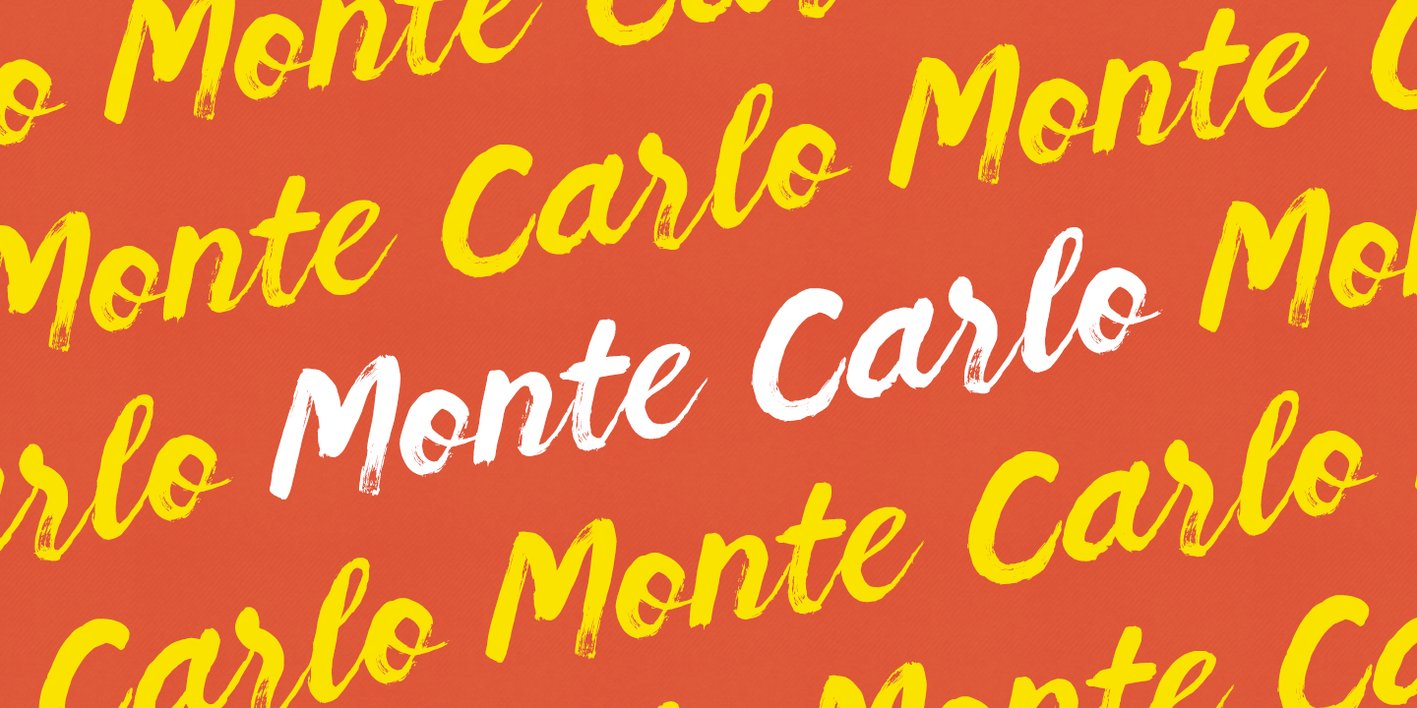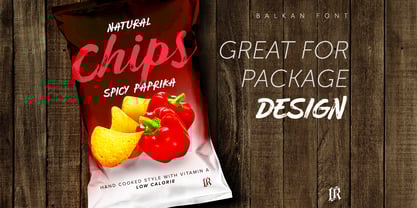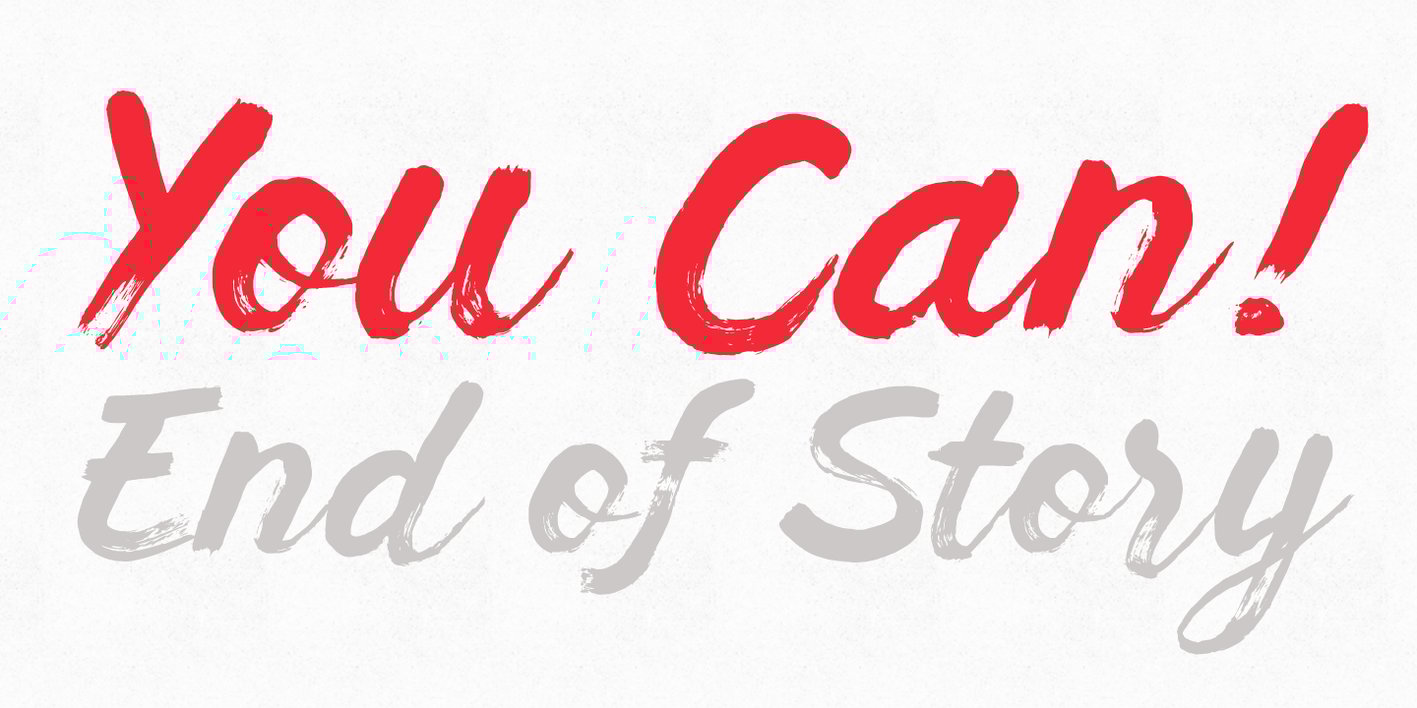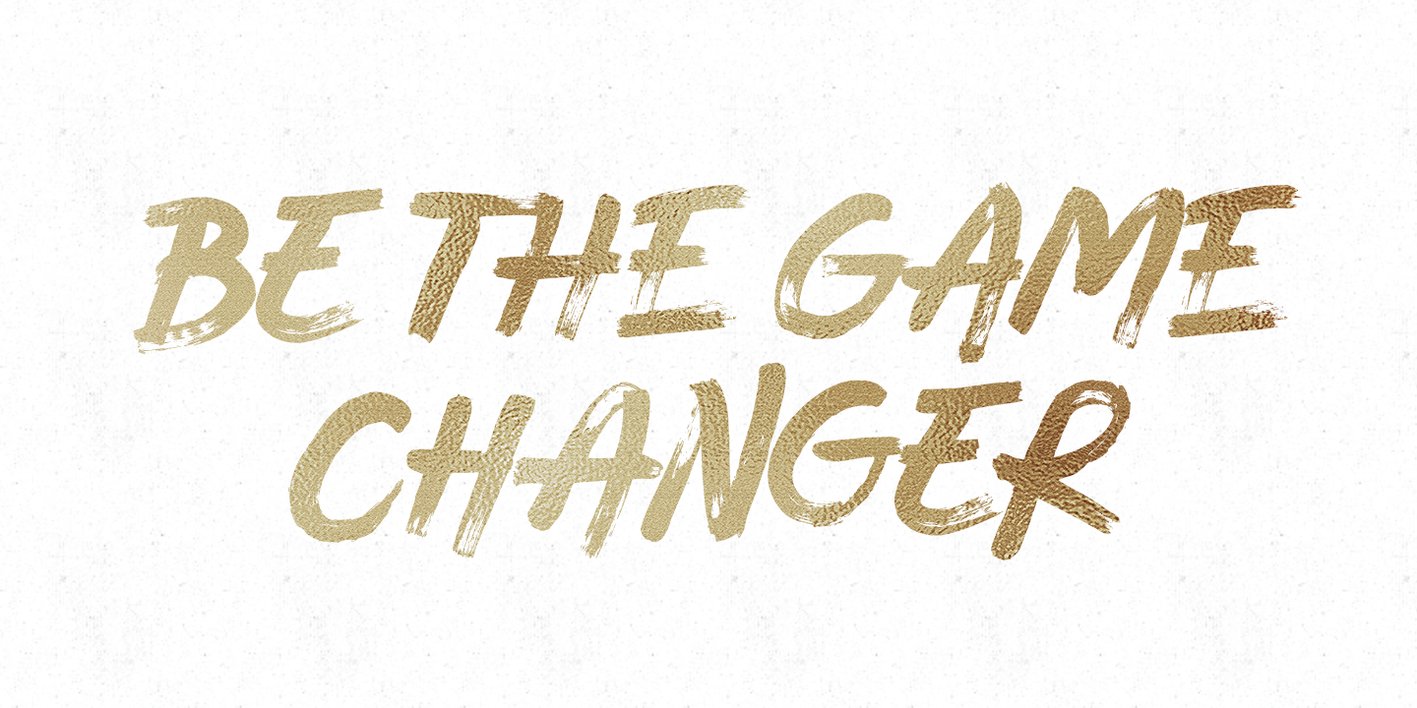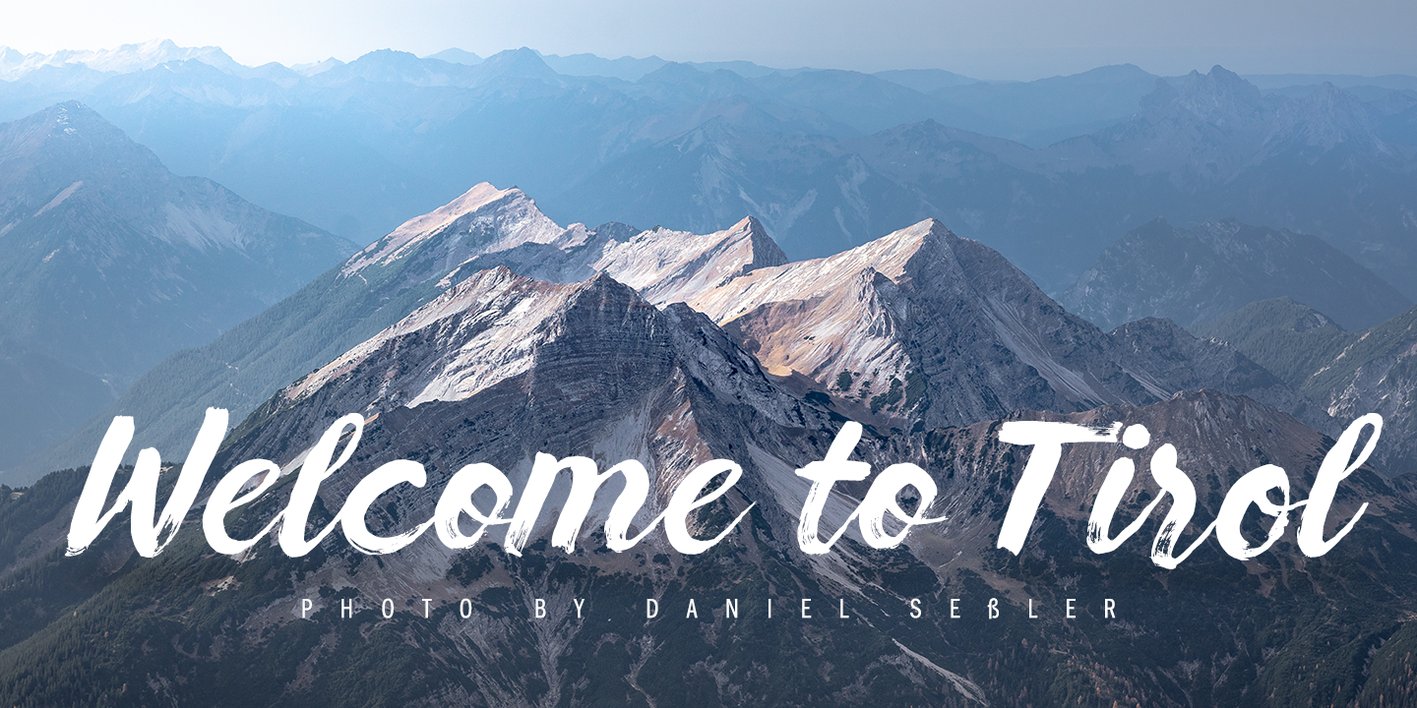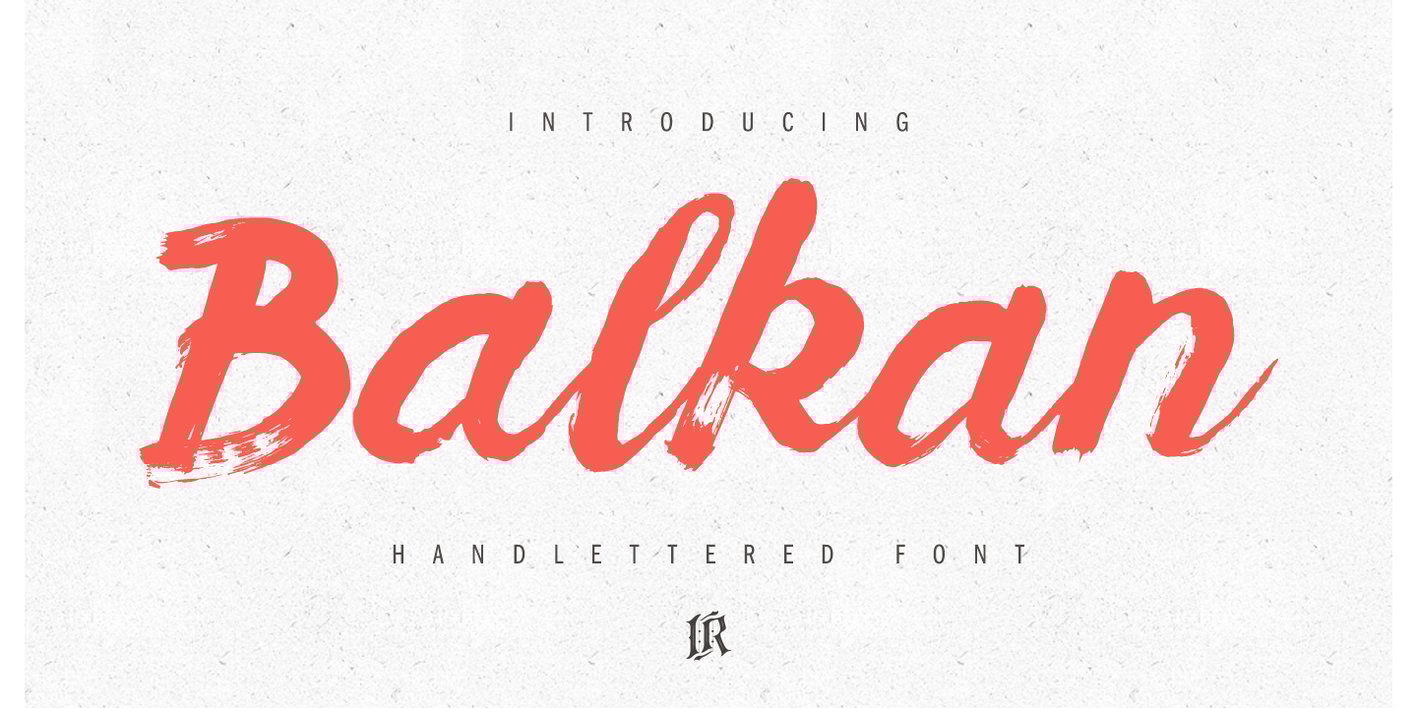
Balkan Font
Balkan Font is ideal for cultural projects, traditional restaurant menus, folk festival posters, heritage museum displays, travel brochures, ethnic food packaging, artisan craft branding, cultural event invitations, historical documentaries, and authentic regional marketing materials.
What makes Balkan Font so exciting is its authentic representation of Balkan cultural heritage through sophisticated typography. This distinctive typeface captures the rich historical essence of Southeastern European design traditions while maintaining contemporary usability. The font's carefully crafted letterforms feature traditional elements and characteristic flourishes that immediately evoke the warmth, hospitality, and cultural depth of the Balkan region, making it perfect for projects that need to convey authenticity and cultural connection.
The Balkan Font family typically includes multiple weights and styles, often featuring regular, bold, and decorative variations. Traditional cultural font families frequently offer extended character sets supporting various Cyrillic and Latin scripts, along with ornamental elements and diacritical marks that ensure proper representation of regional languages and cultural nuances.
The cultural authenticity of Balkan Font makes it particularly valuable for tourism industries, cultural institutions, and businesses seeking to connect with Balkan diaspora communities worldwide. Marketing professionals will find this font especially effective for campaigns targeting audiences who value tradition, authenticity, and cultural pride.
What sets Balkan Font apart is its ability to bridge traditional design elements with modern functionality. This unique characteristic makes it suitable for both digital applications and traditional print materials where cultural accuracy and visual appeal must coexist harmoniously.
Professional designers recognize that Balkan Font brings invaluable cultural dimension to projects across industries including hospitality, entertainment, education, and cultural preservation. Its authentic character and regional specificity make it an essential tool for projects requiring genuine cultural representation.
The thoughtful design approach of Balkan Font ensures respectful cultural representation while delivering the professional quality that contemporary design projects demand.